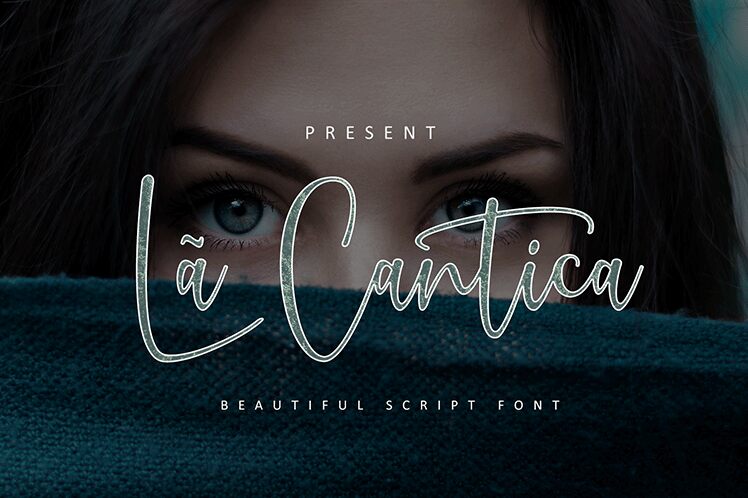
La Cantica Demo
La Cantica Script, is a modern calligraphy font designed by Fadhil, with characters dance along the baseline and elegant touch. With almost 404 glyphs. Opentype features with stylistic alternates, ligatures and multiple language support. Can be used for various purposes such as logos, wedding invitation, letterhead, signage,news, t-shirt, heading lable, posters, badges etc.